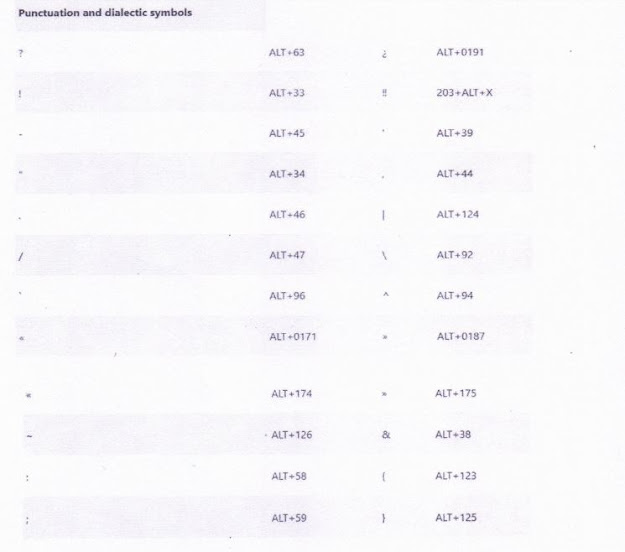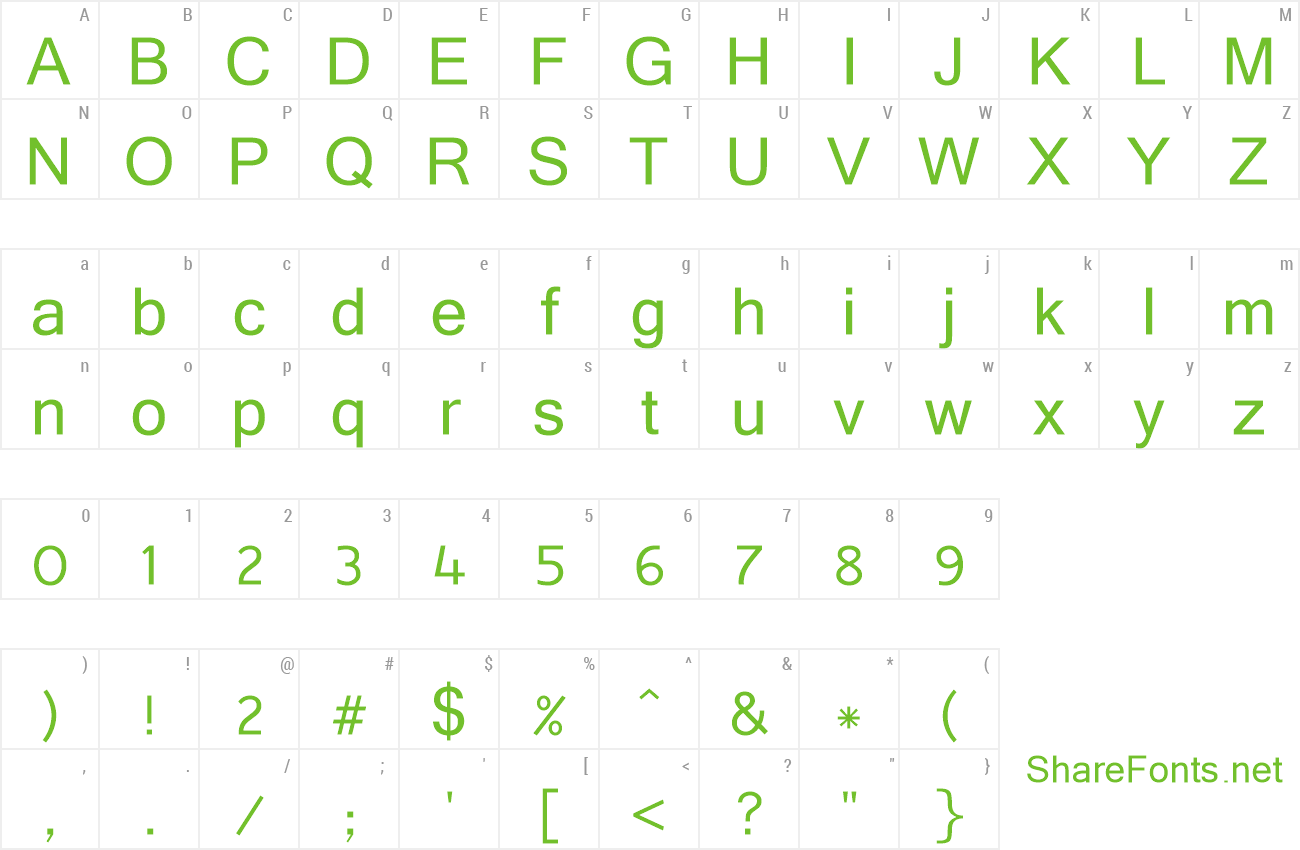
Special Characters Raavi Font . Shift keys se type hoti hai. You can download free raavi punjabi unicode font for windows, macos, linux, android & ios. Raavi font mai bahut se functions hai isme tippi, lawan, dulavan, adhak etc. Raavi is the most popular font in punjabi unicode. Helpful to prepare for typing tests for government jobs. Learn punjabi typing in raavi font for free using akhartk.com website. In punjabi typing many characters are typed using alt, these can be written by using special code i.e. The font also includes several ligatures, which are special characters that combine two or more letters into a single glyph, and diacritical marks,. Download punjabi unicode (raavi), special symbols, gurmukhi digits, ਪੈਰ ‘ਚ ਬਿੰਦੀ ਵਾਲੇ ਅੱਖਰ, other symbols Alt + numeric code to type character in. Aap bar bar iski practice. Punjabi typing in raavi font altcode symbols & special code || special symbols in raavi font.ਸਤਿ ਸ਼੍ਰੀ ਅਕਾਲ ਸਾਰਿਆਂ ਨੂੰ ਅੱਜ ਆਪਾ ਗੱਲ.
Helpful to prepare for typing tests for government jobs. Raavi is the most popular font in punjabi unicode. In punjabi typing many characters are typed using alt, these can be written by using special code i.e. Learn punjabi typing in raavi font for free using akhartk.com website. Raavi font mai bahut se functions hai isme tippi, lawan, dulavan, adhak etc. Punjabi typing in raavi font altcode symbols & special code || special symbols in raavi font.ਸਤਿ ਸ਼੍ਰੀ ਅਕਾਲ ਸਾਰਿਆਂ ਨੂੰ ਅੱਜ ਆਪਾ ਗੱਲ. Download punjabi unicode (raavi), special symbols, gurmukhi digits, ਪੈਰ ‘ਚ ਬਿੰਦੀ ਵਾਲੇ ਅੱਖਰ, other symbols You can download free raavi punjabi unicode font for windows, macos, linux, android & ios. Alt + numeric code to type character in. Shift keys se type hoti hai.
Special Characters Raavi Font You can download free raavi punjabi unicode font for windows, macos, linux, android & ios. Helpful to prepare for typing tests for government jobs. Alt + numeric code to type character in. Raavi font mai bahut se functions hai isme tippi, lawan, dulavan, adhak etc. You can download free raavi punjabi unicode font for windows, macos, linux, android & ios. Raavi is the most popular font in punjabi unicode. The font also includes several ligatures, which are special characters that combine two or more letters into a single glyph, and diacritical marks,. Download punjabi unicode (raavi), special symbols, gurmukhi digits, ਪੈਰ ‘ਚ ਬਿੰਦੀ ਵਾਲੇ ਅੱਖਰ, other symbols In punjabi typing many characters are typed using alt, these can be written by using special code i.e. Punjabi typing in raavi font altcode symbols & special code || special symbols in raavi font.ਸਤਿ ਸ਼੍ਰੀ ਅਕਾਲ ਸਾਰਿਆਂ ਨੂੰ ਅੱਜ ਆਪਾ ਗੱਲ. Aap bar bar iski practice. Learn punjabi typing in raavi font for free using akhartk.com website. Shift keys se type hoti hai.
SOLUTION All about raavi font character map symbol and many more www Special Characters Raavi Font Shift keys se type hoti hai. Aap bar bar iski practice. Raavi is the most popular font in punjabi unicode. Learn punjabi typing in raavi font for free using akhartk.com website. The font also includes several ligatures, which are special characters that combine two or more letters into a single glyph, and diacritical marks,. Punjabi typing in raavi font altcode. Special Characters Raavi Font.
Punjabi Typing Test in Raavi Font, WPM, Typing Tutor, Learn Raavi Typing Special Characters Raavi Font Shift keys se type hoti hai. The font also includes several ligatures, which are special characters that combine two or more letters into a single glyph, and diacritical marks,. Alt + numeric code to type character in. Helpful to prepare for typing tests for government jobs. You can download free raavi punjabi unicode font for windows, macos, linux, android &. Special Characters Raavi Font.
Raavi Unicode Font Character Chart Labb by AG Special Characters Raavi Font Aap bar bar iski practice. Shift keys se type hoti hai. Raavi font mai bahut se functions hai isme tippi, lawan, dulavan, adhak etc. In punjabi typing many characters are typed using alt, these can be written by using special code i.e. The font also includes several ligatures, which are special characters that combine two or more letters into a. Special Characters Raavi Font.
Special Font Characters ALT Key Characters Special Characters Raavi Font In punjabi typing many characters are typed using alt, these can be written by using special code i.e. Helpful to prepare for typing tests for government jobs. Download punjabi unicode (raavi), special symbols, gurmukhi digits, ਪੈਰ ‘ਚ ਬਿੰਦੀ ਵਾਲੇ ਅੱਖਰ, other symbols The font also includes several ligatures, which are special characters that combine two or more letters into a. Special Characters Raavi Font.
Download Free Font Raavi Special Characters Raavi Font Punjabi typing in raavi font altcode symbols & special code || special symbols in raavi font.ਸਤਿ ਸ਼੍ਰੀ ਅਕਾਲ ਸਾਰਿਆਂ ਨੂੰ ਅੱਜ ਆਪਾ ਗੱਲ. Alt + numeric code to type character in. In punjabi typing many characters are typed using alt, these can be written by using special code i.e. Learn punjabi typing in raavi font for free using akhartk.com website.. Special Characters Raavi Font.
How To Type in Punjabi Unicode Raavi Font Special Characters Raavi Font Helpful to prepare for typing tests for government jobs. Raavi is the most popular font in punjabi unicode. Punjabi typing in raavi font altcode symbols & special code || special symbols in raavi font.ਸਤਿ ਸ਼੍ਰੀ ਅਕਾਲ ਸਾਰਿਆਂ ਨੂੰ ਅੱਜ ਆਪਾ ਗੱਲ. Aap bar bar iski practice. Alt + numeric code to type character in. In punjabi typing many characters are. Special Characters Raavi Font.